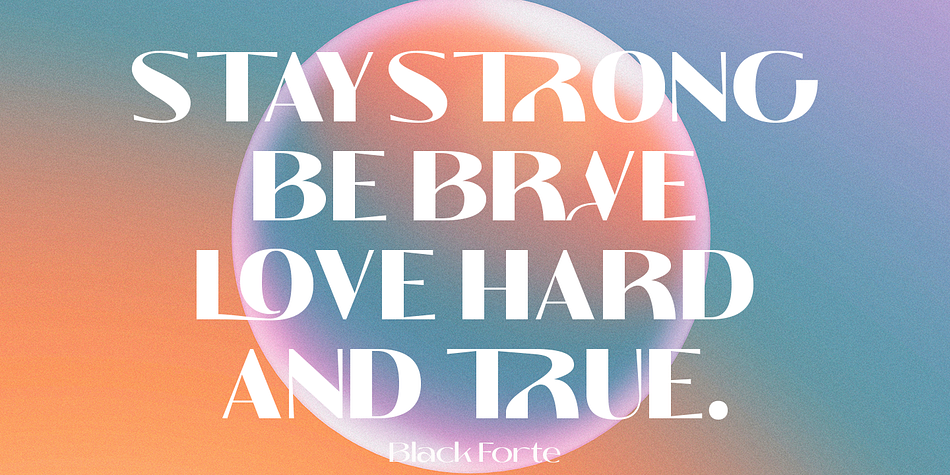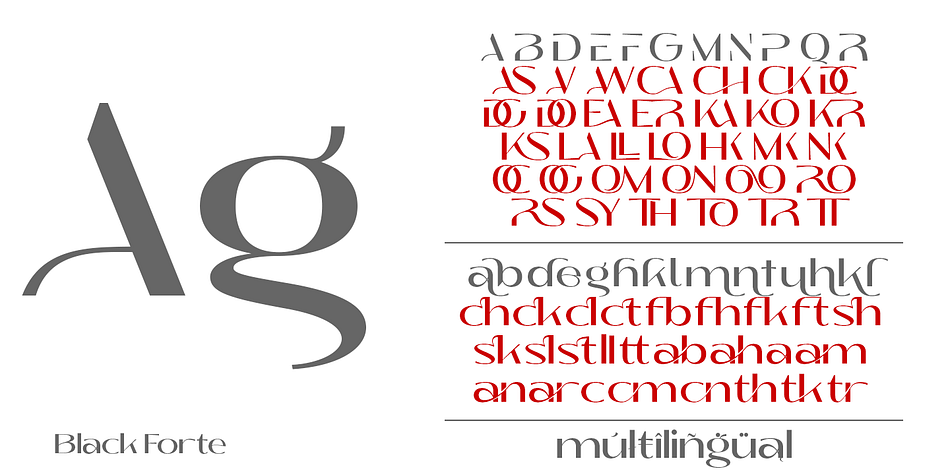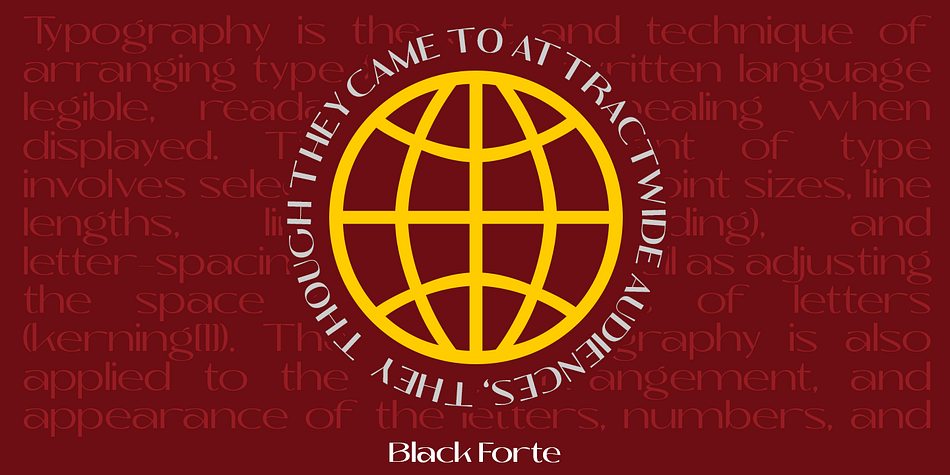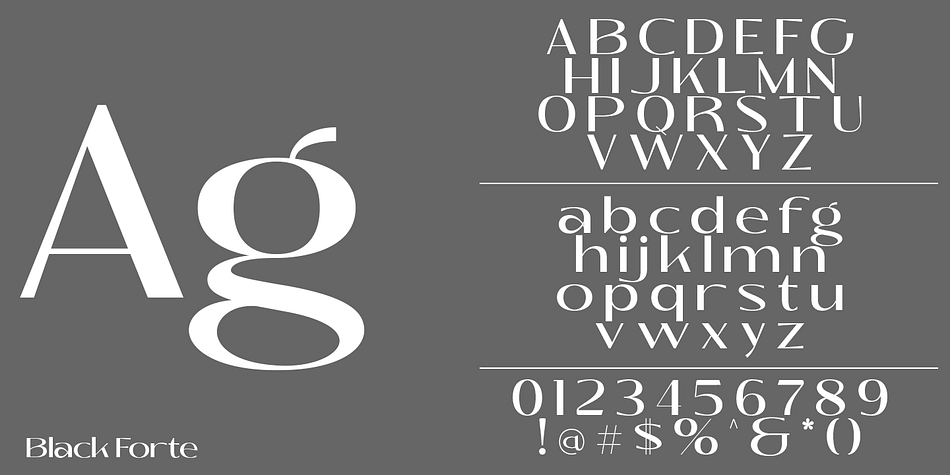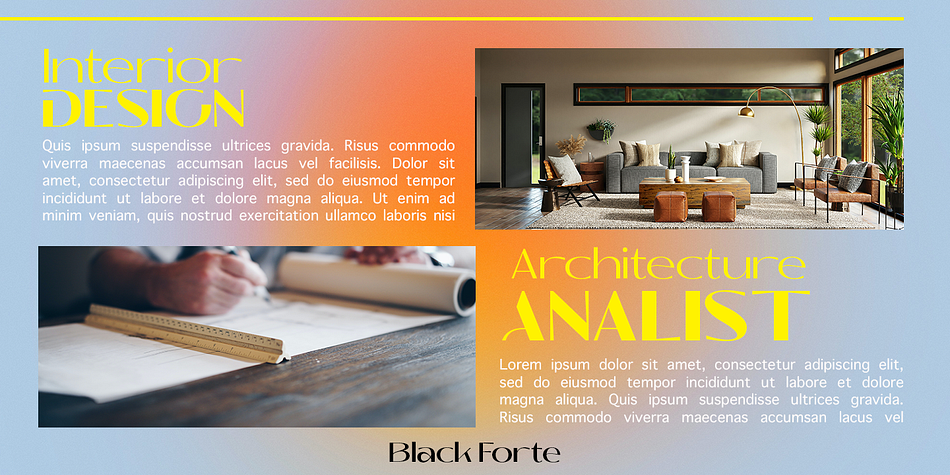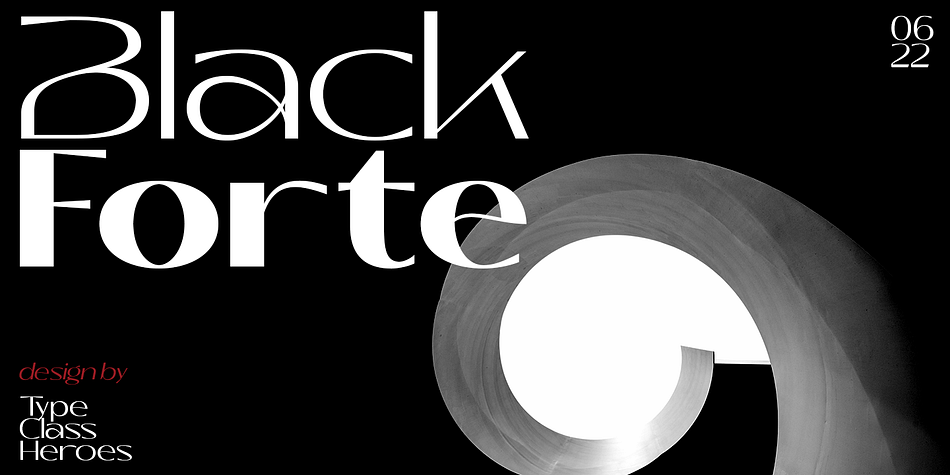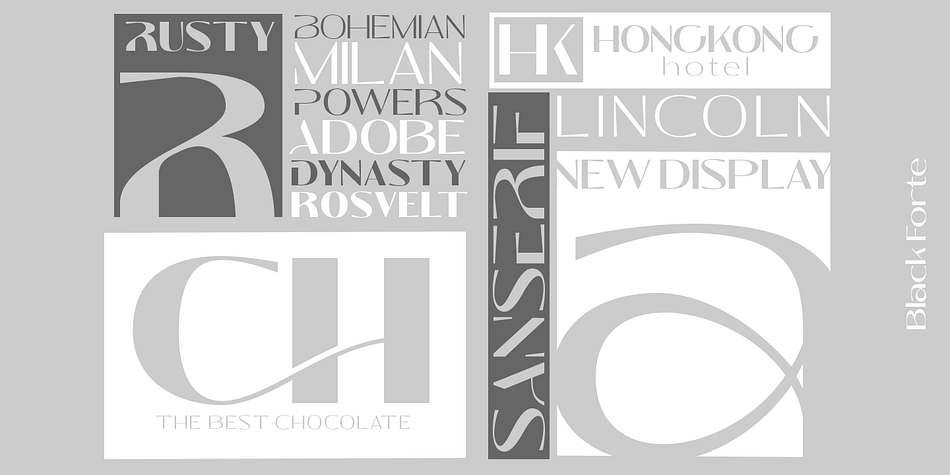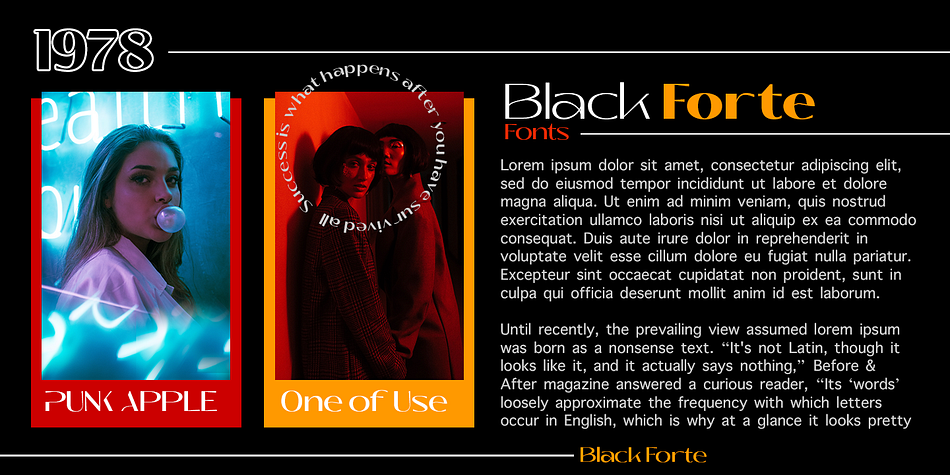
Designed by Suandana Ipandemade, Black Forte is a display sans font family. This typeface has nine styles and was published by madeDeduk.
Black Forte is a sans serif display with various width and weight that you can explore and combine. use this font for any branding, product packaging, invitation, quotes, t-shirt, label, poster, logo etc.